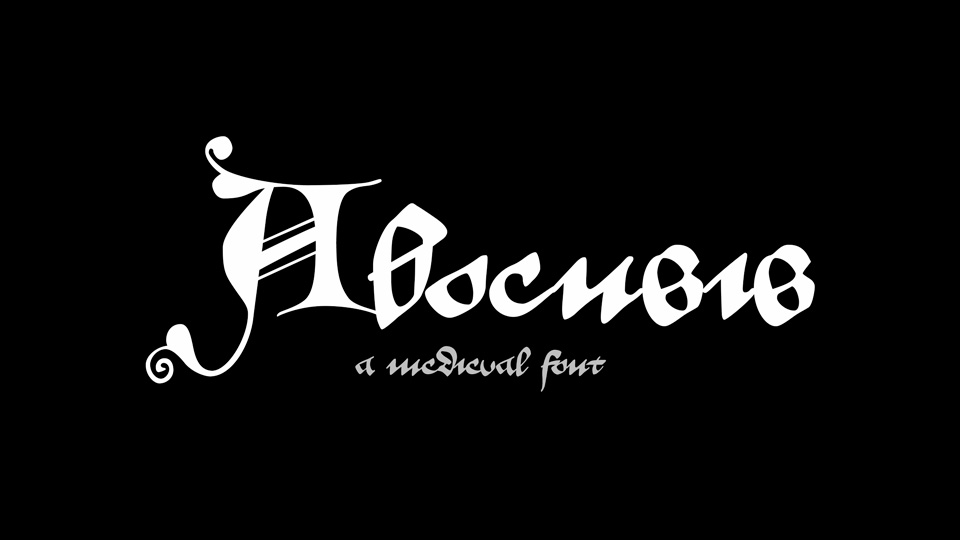
Download Aboensis font, a cursive book hand based on Codex Aboensis that it a medieval book of laws written in Sweden during the 1430s.
Designer: Tommi Syrjänen